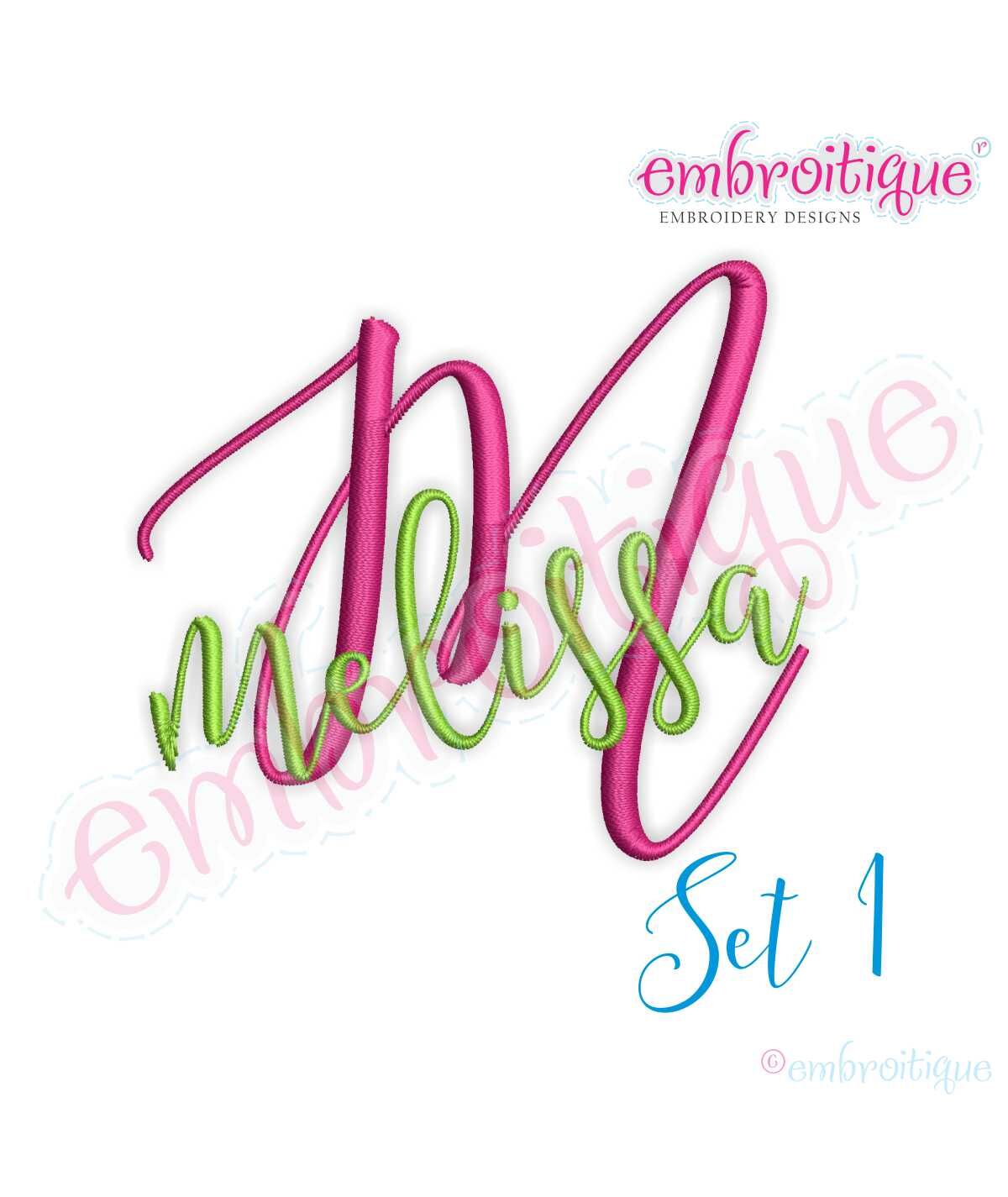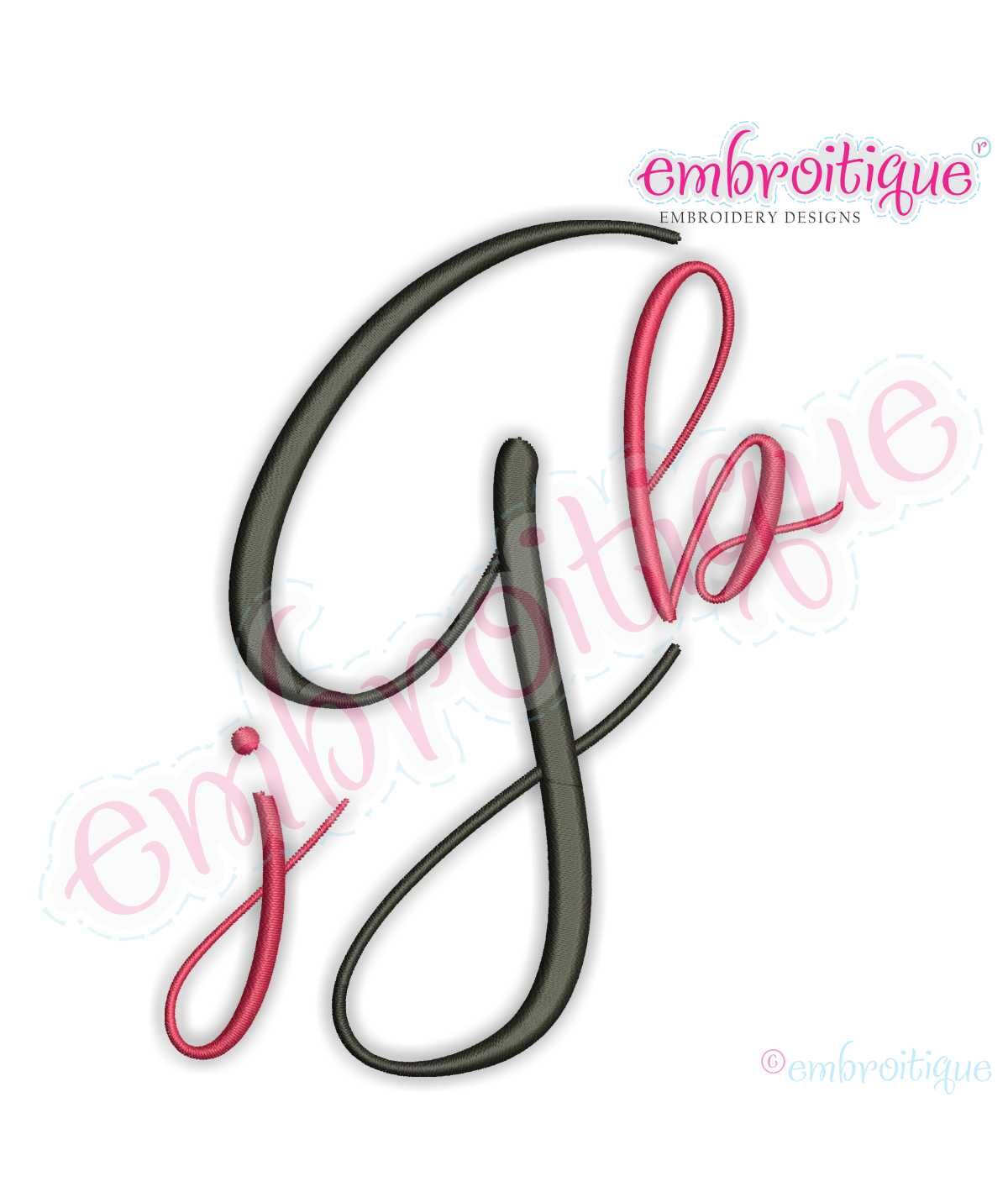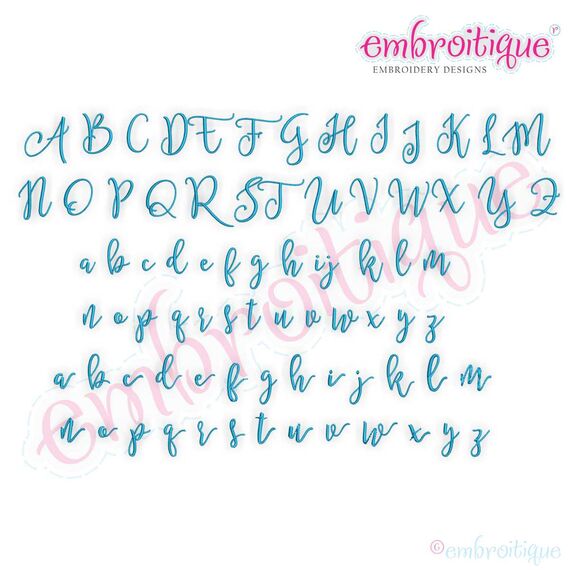
Melissa Monogram Set - Hand Lettered Calligraphy Script - Set 1- 1", 2", 3"
that all work together. Swap out different letters to create beautiful words and lettering.
This is a beautiful hand-lettered callligraphy font. This is the Set 1 of 4 that all work together. Swap out different letters to create beautiful words and lettering.